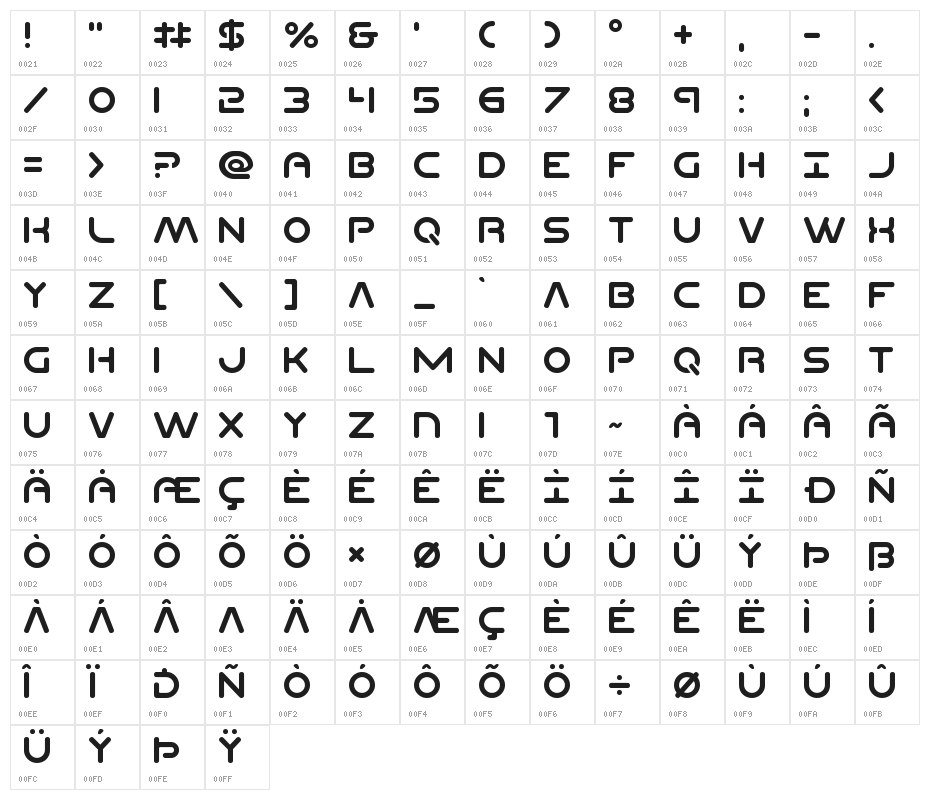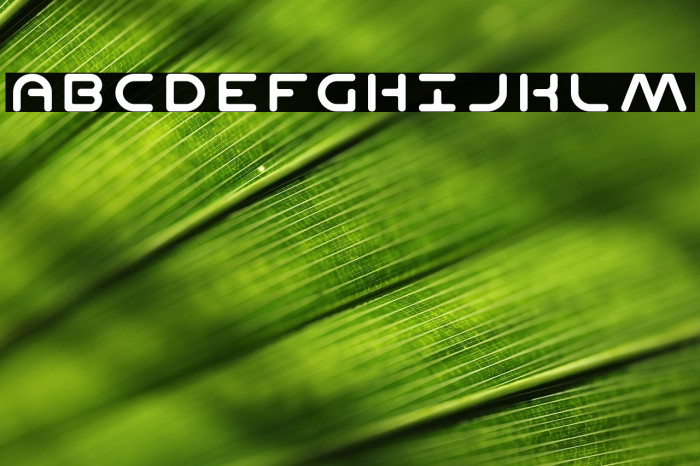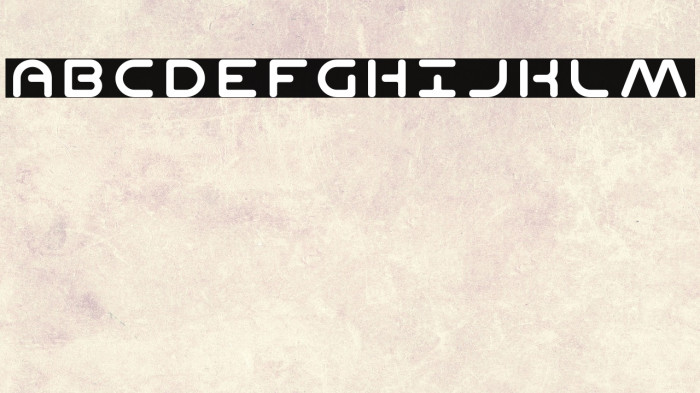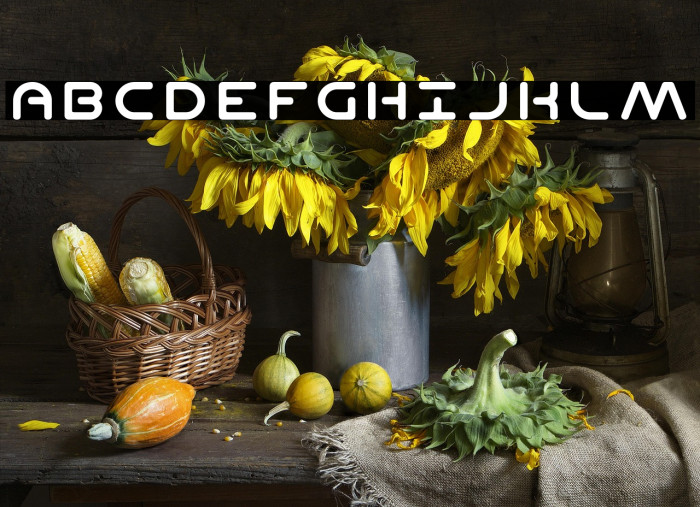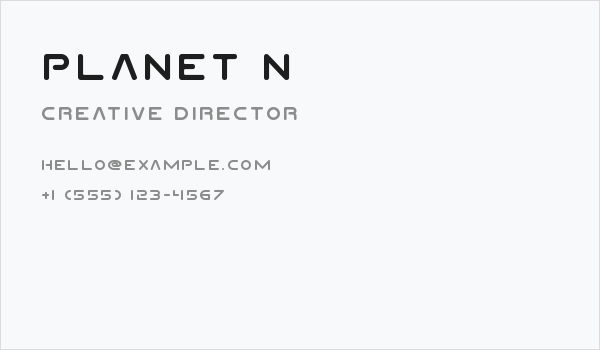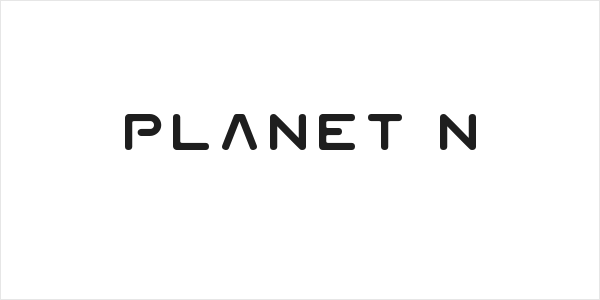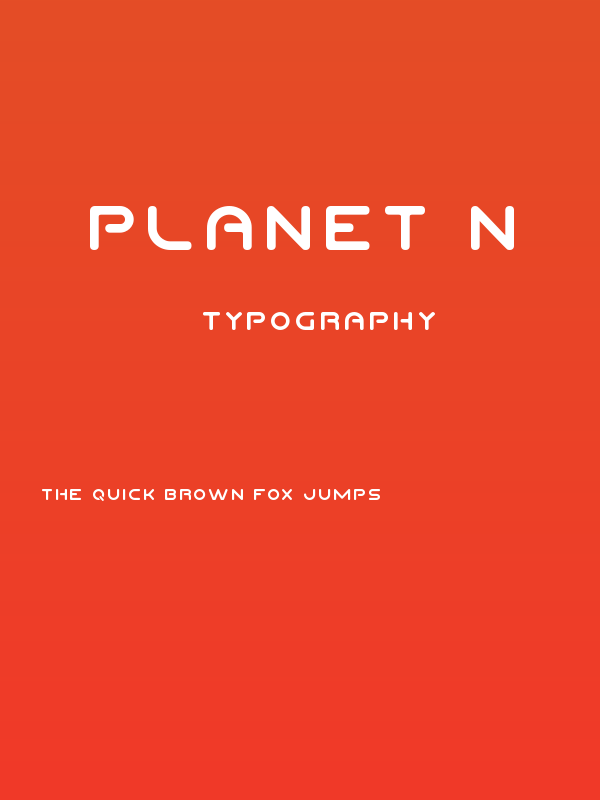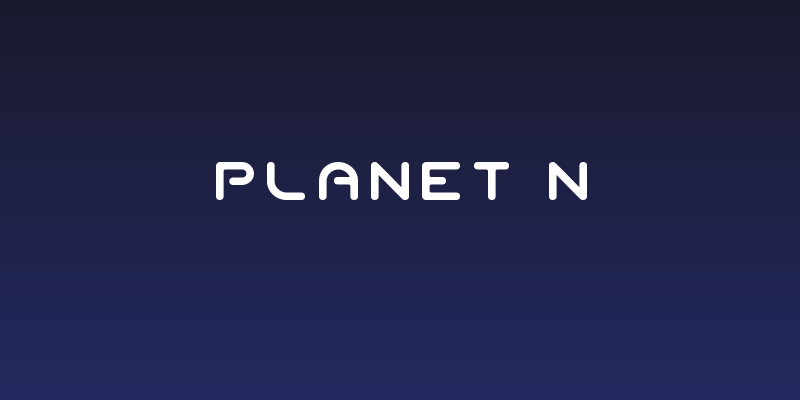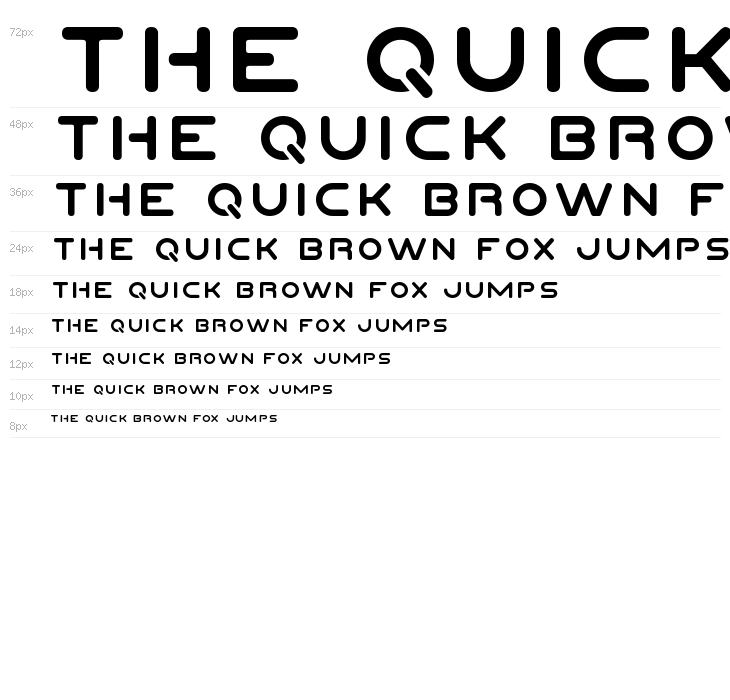
Planet N Font
Planet N Description
This font features a futuristic and geometric design, characterized by its rounded edges and distinct cutouts within the characters. The uppercase and lowercase letters maintain a consistent style, with a uniform stroke width that gives it a clean and modern appearance. The numerals and special characters follow the same design principles, ensuring a cohesive look across all glyphs. The font's unique style makes it stand out, with a playful yet sophisticated vibe that can add a modern touch to any project.
| Use Case | Logos, Headlines, Digital Interfaces |
| Proposed Projects | Ideal for technology branding, sci-fi themed designs, modern logos, and digital interfaces. |